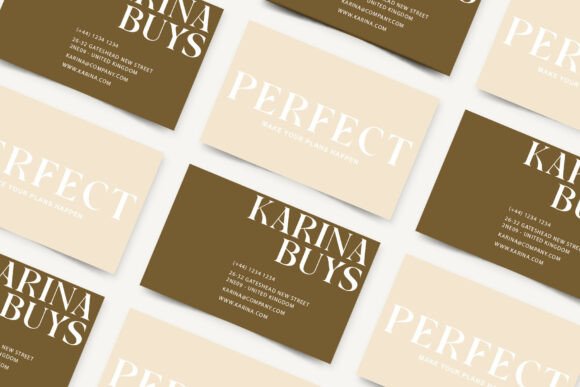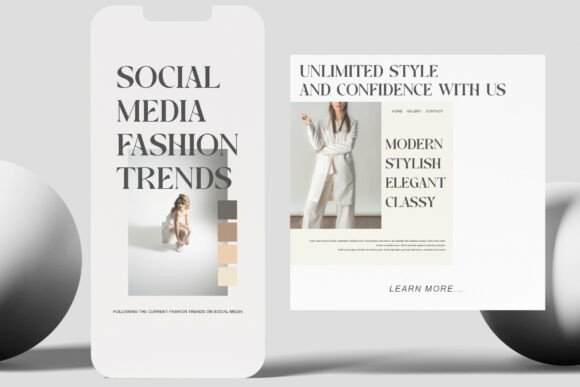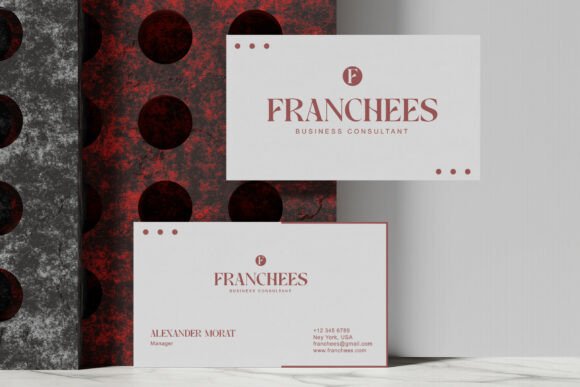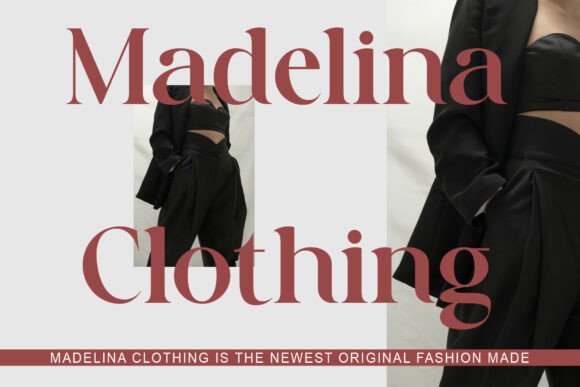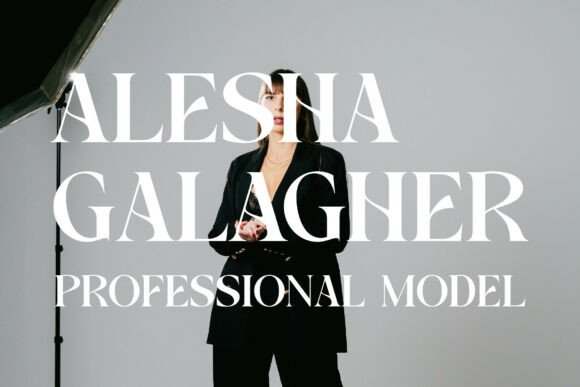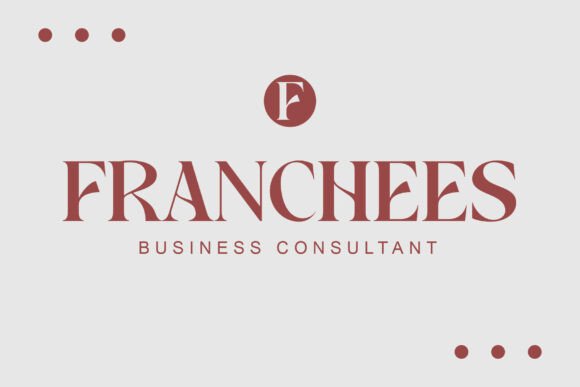
Introducing Bareya: The Elegant, Beautiful, and Modern Serif Font
In the world of typography, a good font can make all the difference in the success of a design project. Whether you’re a designer, craftsperson, or simply someone who appreciates beautiful typography, you’re in luck. Say hello to Bareya, the elegant, beautiful, and modern serif font that’s about to take your projects to the next level.
What is Bareya?
Bareya is a stunning serif font that boasts a modern and minimalist aesthetic. Its clean lines, subtle curves, and luxurious feel make it perfect for a wide range of design projects. With Bareya, you can add a touch of sophistication and elegance to your work, whether it’s a website, logo, brand identity, social media quote, wedding stationery, magazine, or more.
Key Features of Bareya
So, what sets Bareya apart from other fonts? Here are some of its key features:
- Modern and minimalist design: Bareya’s sleek and contemporary look makes it perfect for designers who want to create a fresh and modern feel.
- Luxurious and classy style: With its elegant lines and refined curves, Bareya brings a touch of luxury and sophistication to any project.
- Clean and legible: Bareya’s clear and concise design makes it easy to read, even at small font sizes.
- Versatile: Whether you’re designing a logo, website, or print material, Bareya is the perfect choice.
Bareya is an incredibly versatile font that can be used for a wide range of design projects, including:
- Logos and brands: Create a lasting impression with Bareya’s elegant and sophisticated design.
- Wedding invitations: Add a touch of romance and luxury to your wedding stationery with Bareya.
- Business cards: Stand out from the crowd with Bareya’s modern and professional design.
- Greeting cards: Create beautiful and heartfelt greeting cards with Bareya’s elegant script.
- Posters and magazines: Use Bareya to add a touch of sophistication and glamour to your print materials.
- Social media: Elevate your social media presence with Bareya’s clean and modern design.
- Agenda prints and websites: Use Bareya to create stunning and professional-looking agenda prints and websites.
Why Choose Bareya?
So, why should you choose Bareya for your design projects? Here are just a few reasons:
- Unique and distinctive design: Bareya’s modern serif design sets it apart from other fonts.
- Elegant and sophisticated: Add a touch of luxury and refinement to your projects with Bareya.
- Highly legible: Bareya’s clear and concise design makes it easy to read, even at small font sizes.
- Versatile: Use Bareya for a wide range of design projects, from logos and branding to print materials and websites.
In conclusion, Bareya is a stunning and versatile serif font that’s perfect for designers, craftspersons, and anyone who appreciates beautiful typography. With its modern and minimalist design, luxurious feel, and high legibility, Bareya is the perfect choice for a wide range of design projects. Whether you’re looking to create a logo, website, or print material, Bareya is sure to impress. So why wait? Try Bareya today and take your design projects to the next level!